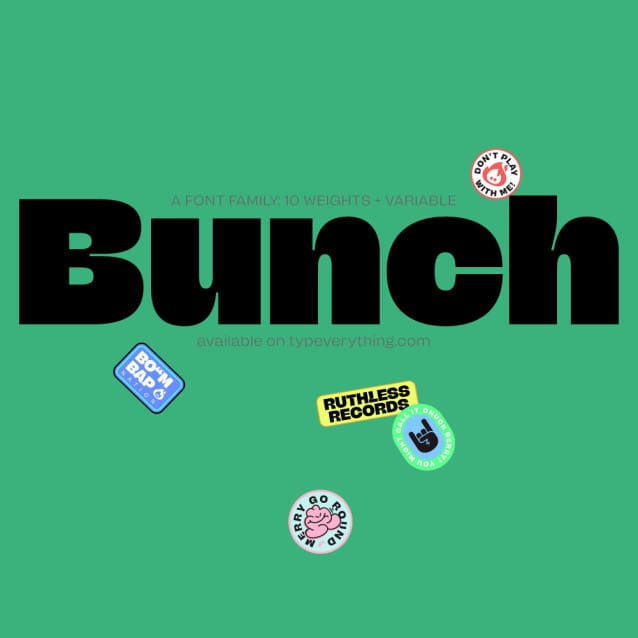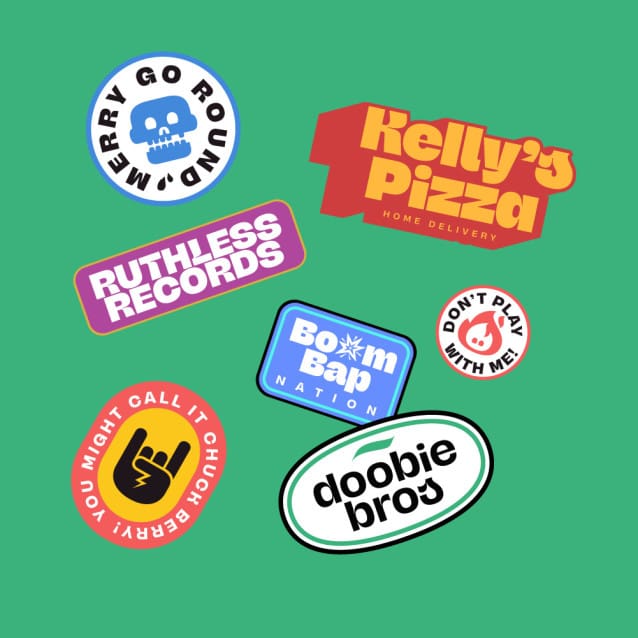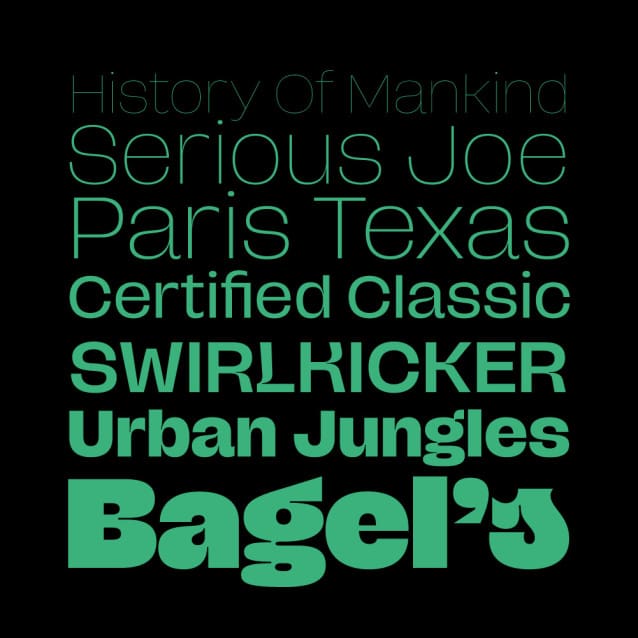
Bunch Font Family
Bunch Font Family is a new typeface that embodies a harmonious combination of functionality and personality. With 10 weights ranging from Hairline to Heavy (and the variable font included in the full family packs), Bunch offers versatility and customization to meet all your design needs. Whether you’re using it for display purposes or across multiple applications, Bunch’s warm and inviting feel will bring a touch of character to your work. Why settle for a boring font when when you can use one that will make your projects POP!